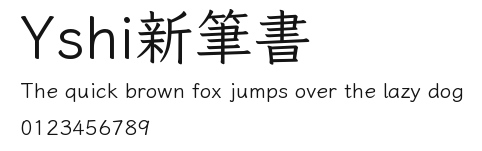
Yshi新筆書 Preview
• Font Name: Yshi新筆書
• Full Font Name: Yshi新筆書
• Designer: LXGW / Fontworks Inc.
• Manufacturer: LXGW / Fontworks Inc.
About Yshi新筆書.ttf
Yshi新筆書.ttf is a modern, elegant sans-serif font designed for ultimate readability and visual harmony. Perfect for branding, headlines, web design, and print materials.